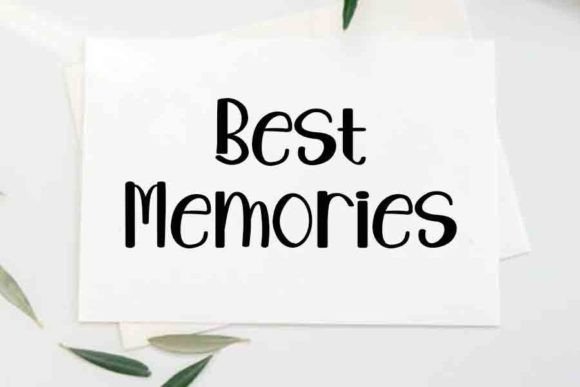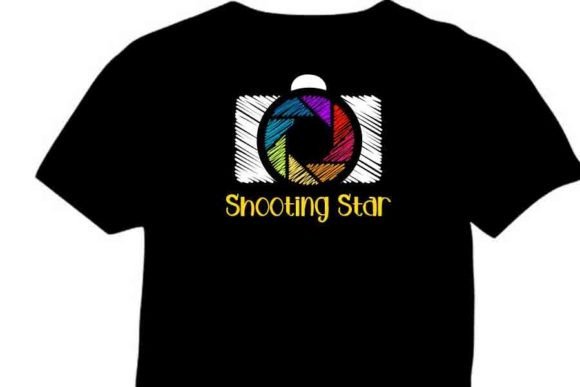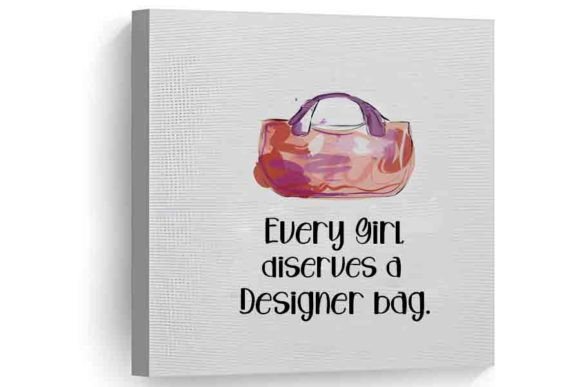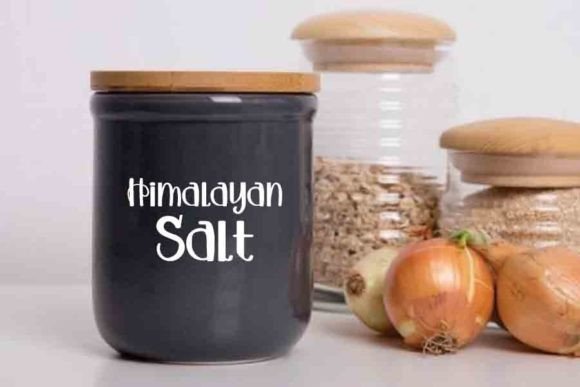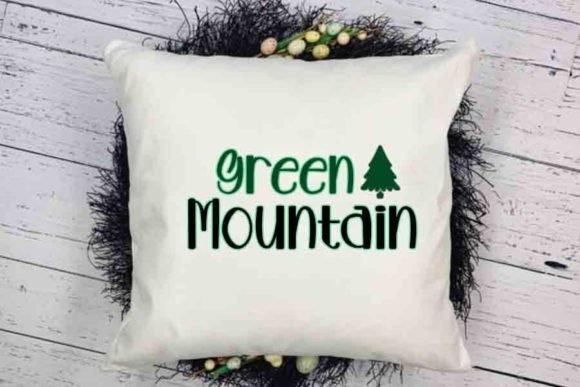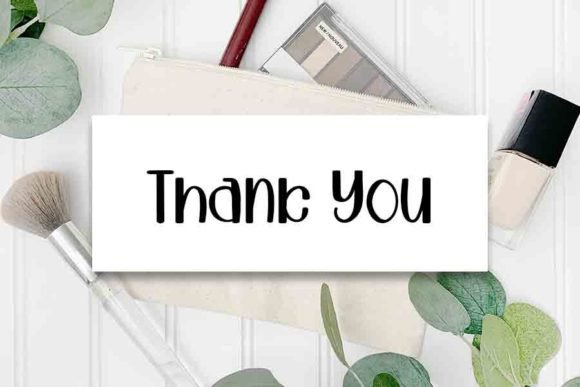
Eagle Star Font: Add a Touch of Whimsy to Your Designs
Are you looking for a font that can add a dash of fun and friendliness to your designs? Look no further than the Eagle Star Font! This sweet and charming handwritten display font is perfect for creating eye-catching wedding invitations, cards, and other designs that require a playful touch.
What is Eagle Star Font?
Eagle Star Font is a beautifully crafted handwritten font that exudes warmth and approachability. Its unique and quirky style makes it an excellent choice for designers and crafters who want to add a personal touch to their work. Whether you’re creating a wedding invitation, a greeting card, or a social media graphic, Eagle Star Font is sure to make your design stand out.
Key Features of Eagle Star Font
- Cute and Fun: Eagle Star Font is designed to be playful and fun, making it perfect for designs that require a lighthearted touch.
- Handwritten Style: The font’s handwritten style gives it a personal and organic feel that’s perfect for creating unique and eye-catching designs.
- Display Font: Eagle Star Font is a display font, making it ideal for use in headlines, titles, and other prominent text elements.
- Versatile: The font is versatile and can be used in a variety of design contexts, from wedding invitations to social media graphics.
Use Cases for Eagle Star Font
Eagle Star Font is a versatile font that can be used in a variety of design contexts. Here are some use cases where the font really shines:
- Wedding Invitations: The font’s sweet and romantic style makes it perfect for creating beautiful wedding invitations that set the tone for the big day.
- Greeting Cards: Eagle Star Font is ideal for creating fun and playful greeting cards for special occasions like birthdays, holidays, and anniversaries.
- Social Media Graphics: The font’s bold and playful style makes it perfect for creating eye-catching social media graphics that grab attention.
- Party Decorations: Eagle Star Font can be used to create fun and playful party decorations, such as banners, garlands, and cupcake toppers.
Tips for Using Eagle Star Font
Here are some tips for getting the most out of Eagle Star Font:
- Use it as a Display Font: Eagle Star Font is designed to be used as a display font, so use it to create eye-catching headlines and titles.
- Experiment with Colors: The font looks great in a variety of colors, so don’t be afraid to experiment and find the perfect color scheme for your design.
- Pair it with Other Fonts: Eagle Star Font pairs well with other fonts, so try pairing it with a sans-serif font for a bold and modern look.
| Font Name | Eagle Star Font |
| Author | Merry Joana |
Eagle Star Font is a sweet and friendly handwritten display font that’s perfect for adding a touch of whimsy to your designs. Its unique and quirky style makes it an excellent choice for designers and crafters who want to create eye-catching wedding invitations, cards, and other designs that require a playful touch. With its versatility, bold style, and endless use cases, Eagle Star Font is sure to become a favorite in your design toolkit.